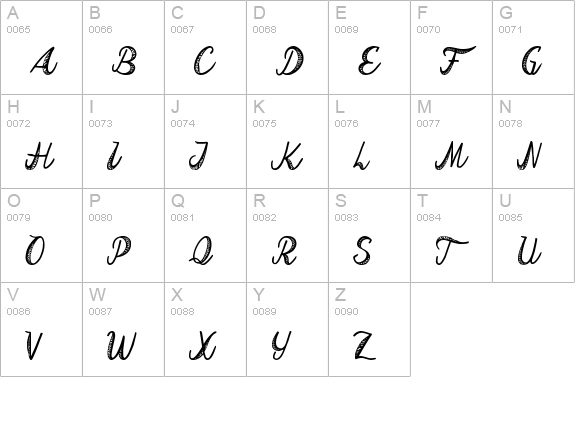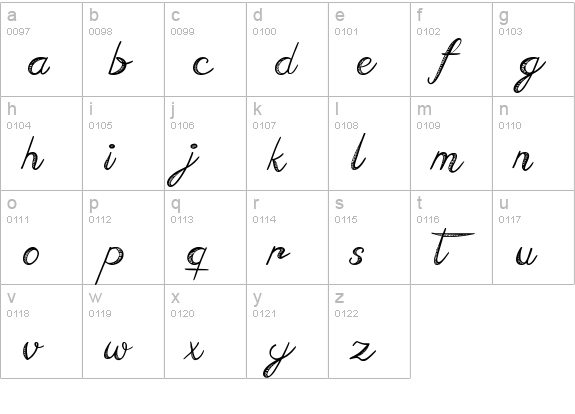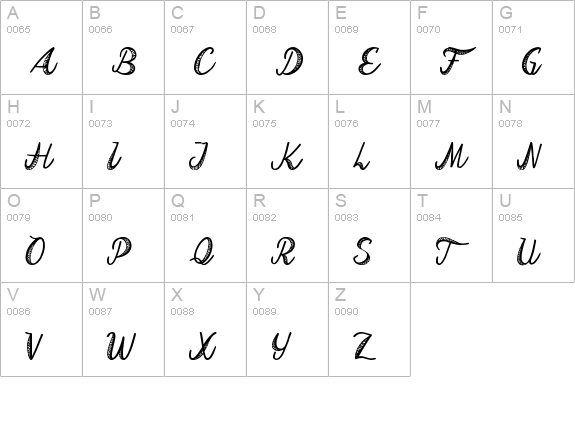
Stoon Font Details
Introducing Stoon, a captivating and versatile font that effortlessly combines elegance with a touch of playfulness. Designed with utmost precision and attention to detail, Stoon is the perfect choice for a wide variety of creative projects, from branding and advertising to social media posts and website designs. With its clean lines, beautifully balanced curves, and distinct letterforms, Stoon exudes a sense of modern sophistication. Each letter is carefully crafted to create a harmonious flow, making it a truly captivating choice for any design endeavor. What sets Stoon apart is not only its stunning aesthetic, but also its accessibility. This remarkable font is available for free download exclusively at FontsMarket.com. Yes, you read that right – absolutely free! FontsMarket.com, a trusted platform for font enthusiasts, offers this gem of a font as a gift to designers, allowing them to unleash their creativity without any restrictions. Whether you're a professional designer or an aspiring creative, Stoon will quickly become your go-to font. Its versatility and timeless appeal make it suitable for a wide range of applications, from elegant wedding invitations to eye-catching packaging designs. The possibilities are endless, and with Stoon, you have the freedom to explore them all. Discover the power of Stoon and elevate your design projects to new heights. Download this extraordinary font for free at FontsMarket.com and let your imagination soar. Unleash your creativity and make a lasting impression with Stoon – a font that combines elegance and playfulness in perfect harmony.